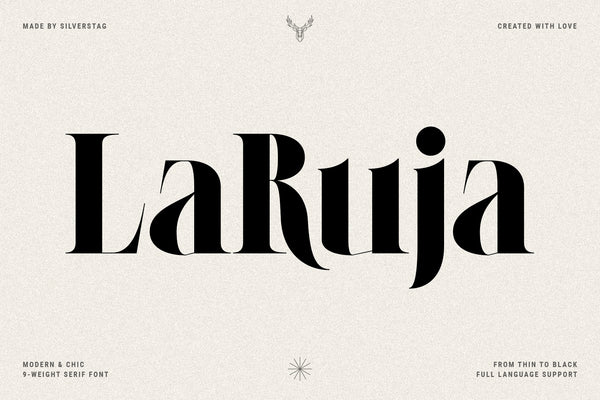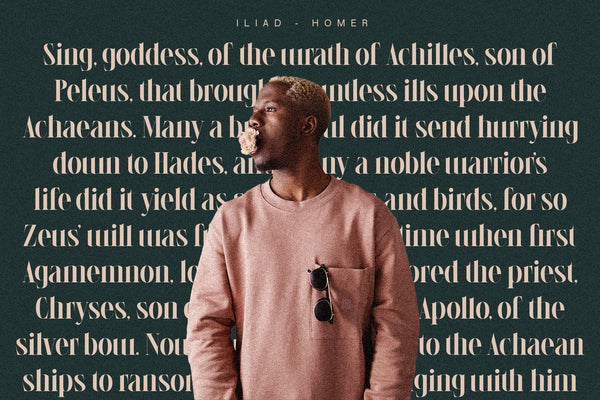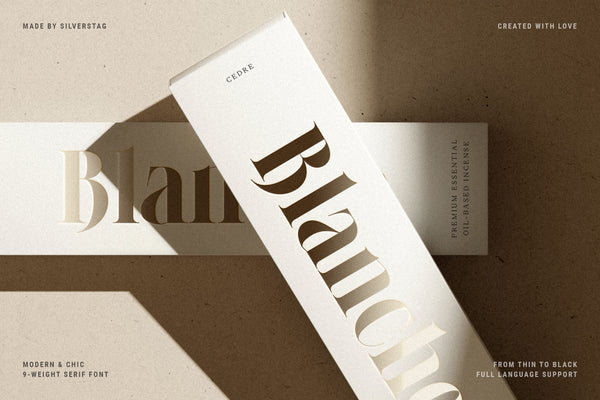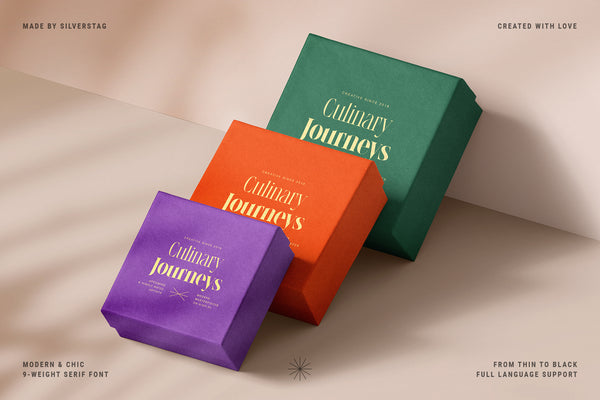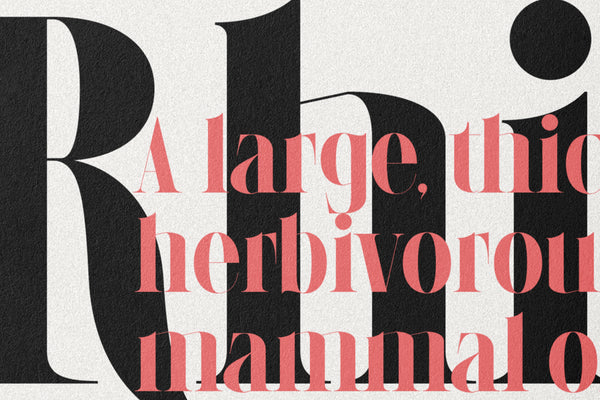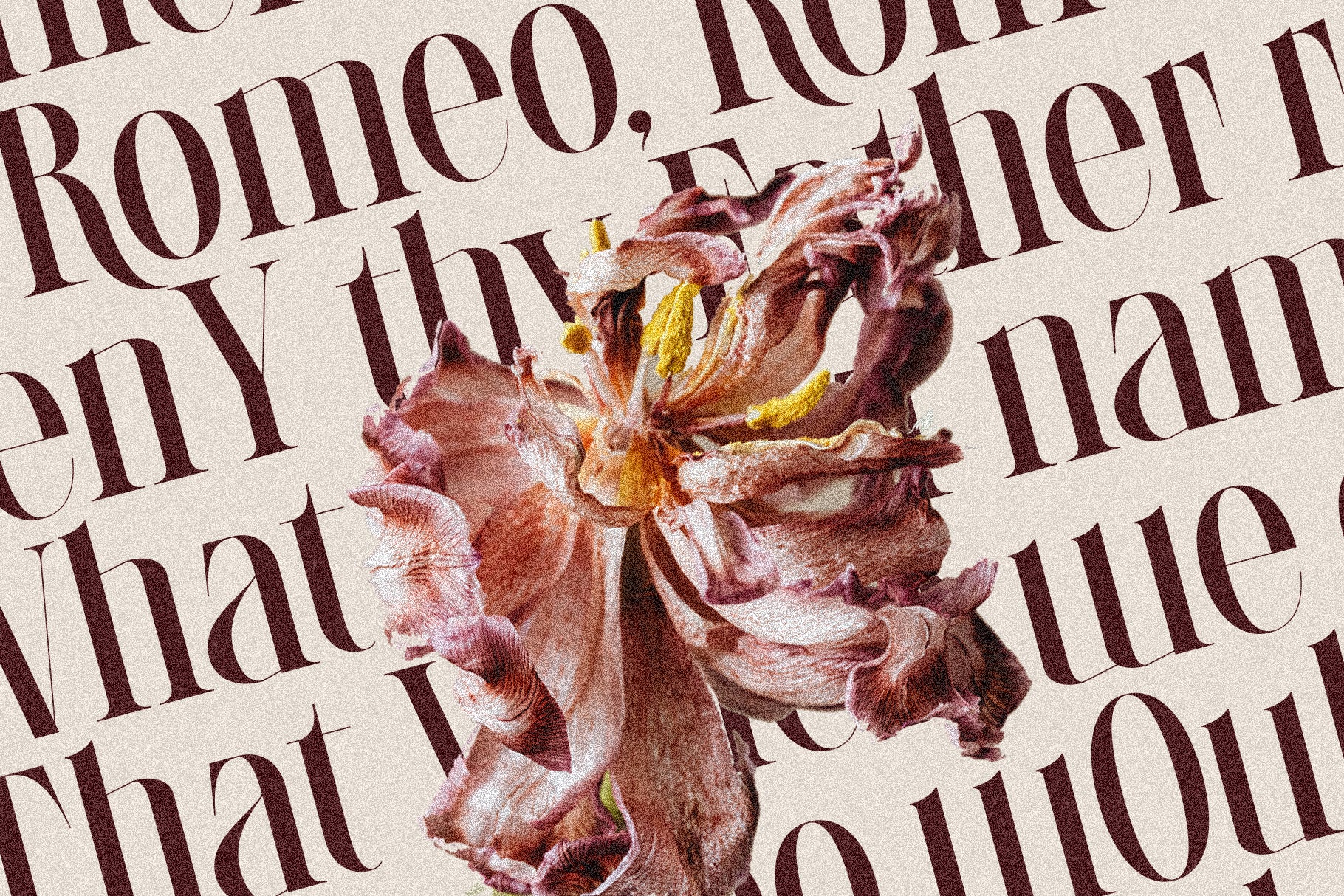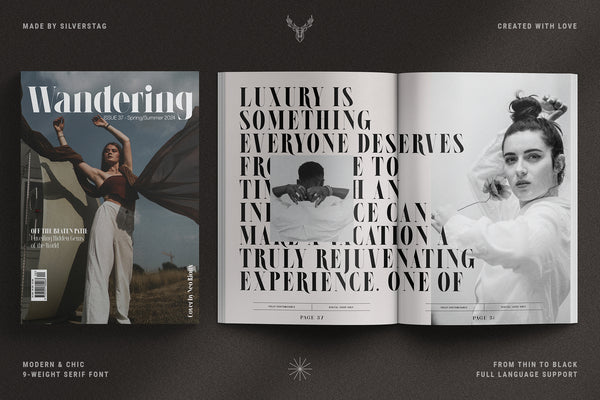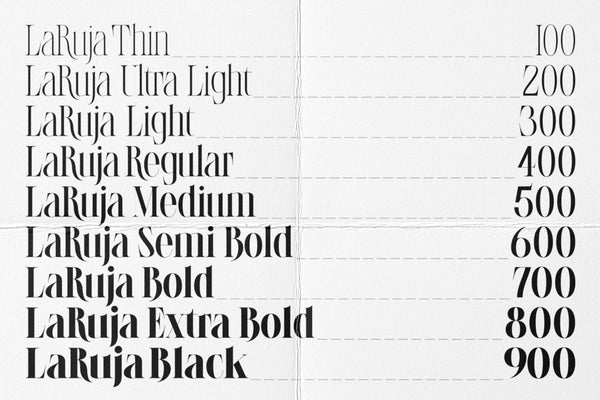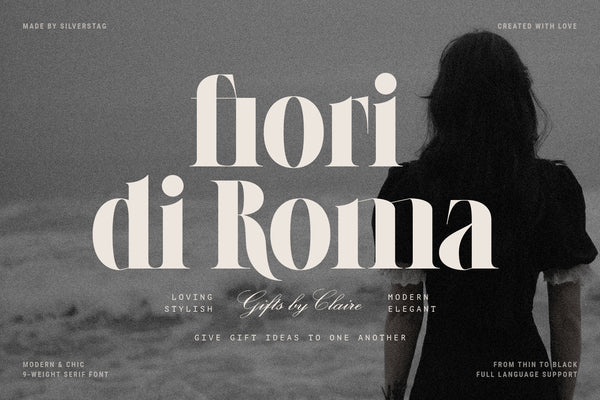
LaRuja is a modern serif font that blends graceful elegance with bold structural confidence. Designed with high contrast between horizontal and vertical strokes, LaRuja adds a sophisticated rhythm and dramatic presence to your typography.
Featuring 9 weights from Thin to Black, this typeface gives you complete control over tone and visual impact. The lighter styles bring softness and finesse, while the heavier weights offer strength, clarity, and authority—making LaRuja ideal for branding systems, editorial layouts, web headlines, and luxury packaging.
Elegant tapered terminals and gently curved arches add a refined, feminine energy, while sturdy serifs and crisp forms ensure legibility and character. This balance of softness and power makes LaRuja a perfect font for projects that need both beauty and substance.
With support for over 90 languages, LaRuja is ready to elevate global brands and creative work with timeless style.